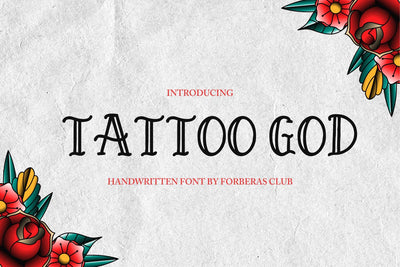
Tattoo God
Introducing Tattoo God Font by Forberas Club
Tattoo God is a Modern Handwritten Font. Tattoo God is perfect for book cover, product packaging, branding project, megazine, social media, merch tatto fonts, or just used to express words above the background. This font includes TTF and OTF, This font also multilingual support.